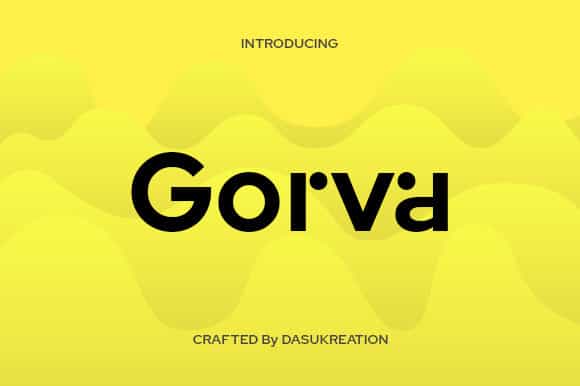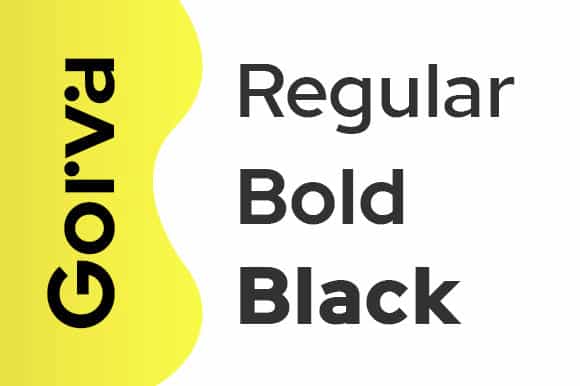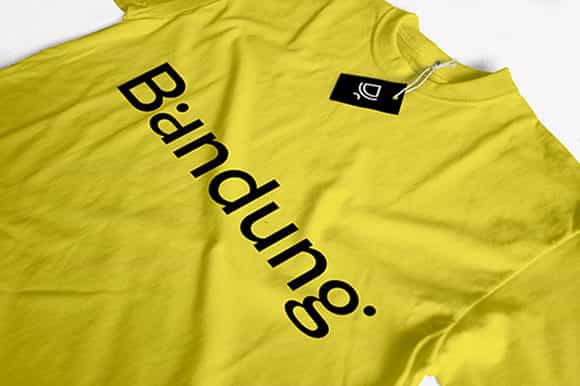
Discover Gorva Font, part of the Sans Serif collection—a versatile and unique font perfect for adding a personal touch to your projects. Download it for free and enjoy crafting designs with style, from invitations to social media posts. This font is available exclusively for personal use, giving you the freedom to create without limits. Unlock your creativity with Gorva Font today!
Gorva is a neat and clean sans serif font with the old school charm suitable for printing on t-shirts, mugs, hoodies, t-shirts, cups and stickers and other such products. Gorva however is a sans-serif font that makes the design unique, stylish and Professional at the same time.